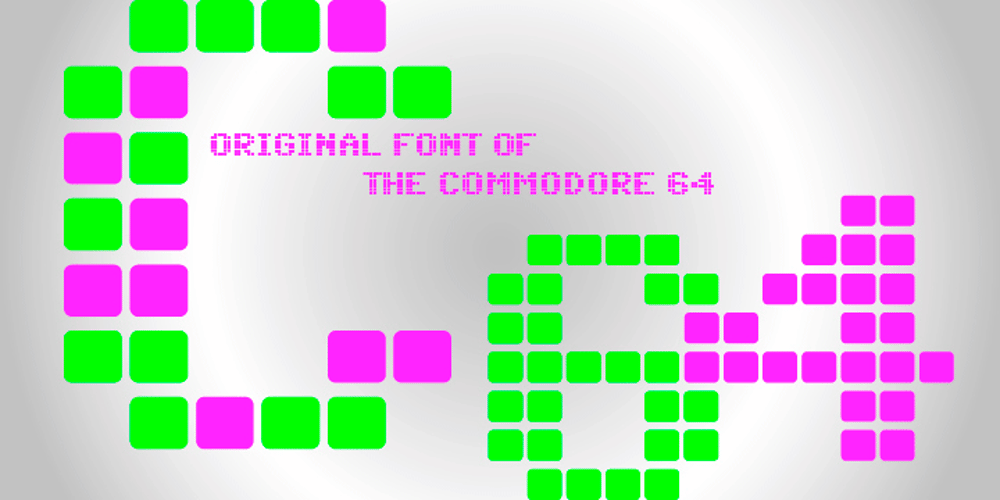
C64 Font Family was designed by Boris Kahl and published by Volcano Type. C64 contains 1 styles and family package options. The Commodore 64 (C64) is a home computer with 64 kilobytes of RAM that was popular in the 1980s. Released by Commodore Business Machines (CBM) to the public in August 1982 at a price of US$595, it offered sound and graphics performance that was good compared to the standard at that time.